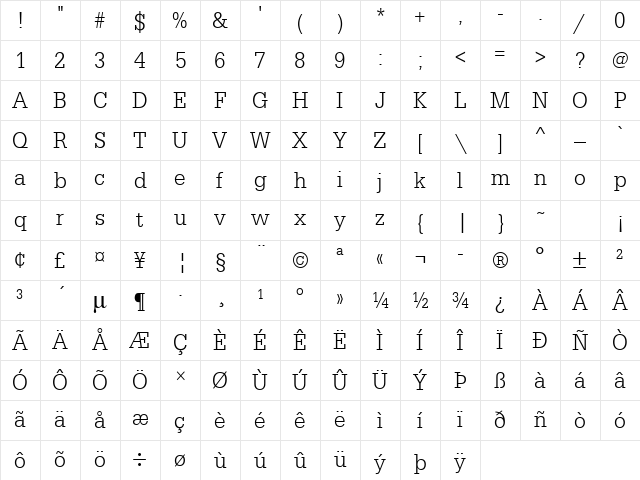
URWEgyptienneTLigExtNar Regular
URWEgyptienneTLigExtNar Family
URWEgyptienneTLigExtNar Regular
Design Context for URWEgyptienneTLigExtNar
URWEgyptienneTLigExtNar is a composed and adaptable typeface that performs quietly and consistently across a wide range of design contexts.